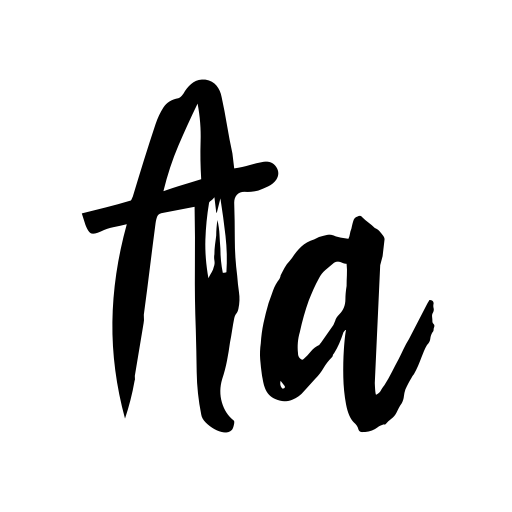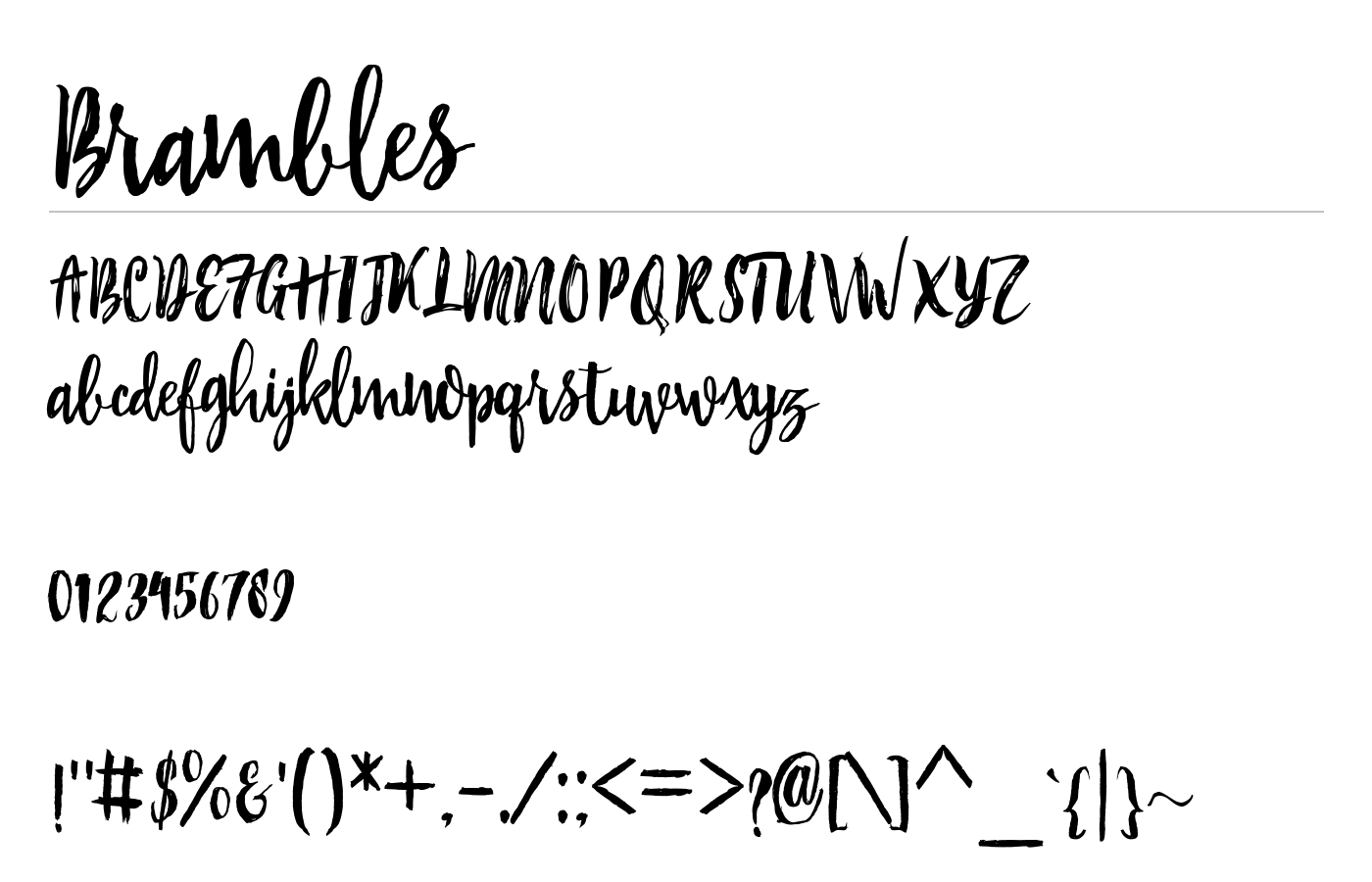
Brambles is a bold, brush-script font with a lively and organic feel, characterized by its textured, hand-painted strokes and casual, flowing letterforms. Its high contrast and irregular shapes convey creativity and warmth, making it perfect for artistic branding, invitations, and expressive headlines that seek a personal, handcrafted touch.
Brambles Font
About Brambles Font
| Font family | Brambles Font |